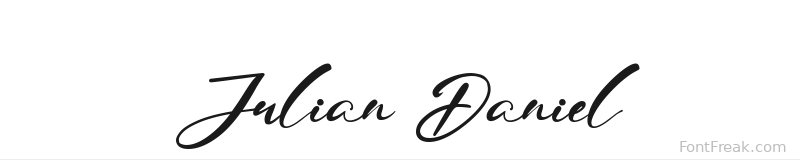
Julian Daniel
About Julian Daniel
Introducing the Julian Daniel font by Kong Font, a stunning script typeface that radiates elegance and sophistication. Released in 2021, this font is classified as a handwritten style, making it perfect for a variety of creative applications. The Julian Daniel font showcases fluid strokes with a medium contrast, offering a balance between boldness and delicacy. Its graceful curves and unique flourishes bring a touch of artistry, while the spacing is well-calibrated to ensure readability without sacrificing style.
This versatile font is ideal for a range of use cases. It shines brightly in wedding invitations, where its romantic flair adds a personal touch to special occasions. Additionally, the Julian Daniel font can elevate movie posters, lending an air of intrigue and excitement. Restaurant menus benefit from its stylish presentation, enticing patrons with an inviting and upscale feel. Moreover, it serves content creators well, particularly in branding materials and social media graphics, where a distinctive typographical voice is essential.
What sets the Julian Daniel font apart is its ability to blend elegance with approachability. Its artistic flair makes it a standout choice for those seeking to create memorable impressions. With the Julian Daniel font free download, users can easily incorporate this exquisite typeface into their designs, ensuring their work captures attention and resonates with audiences. Whether for personal projects or professional endeavors, Julian Daniel is a font that truly inspires creativity.